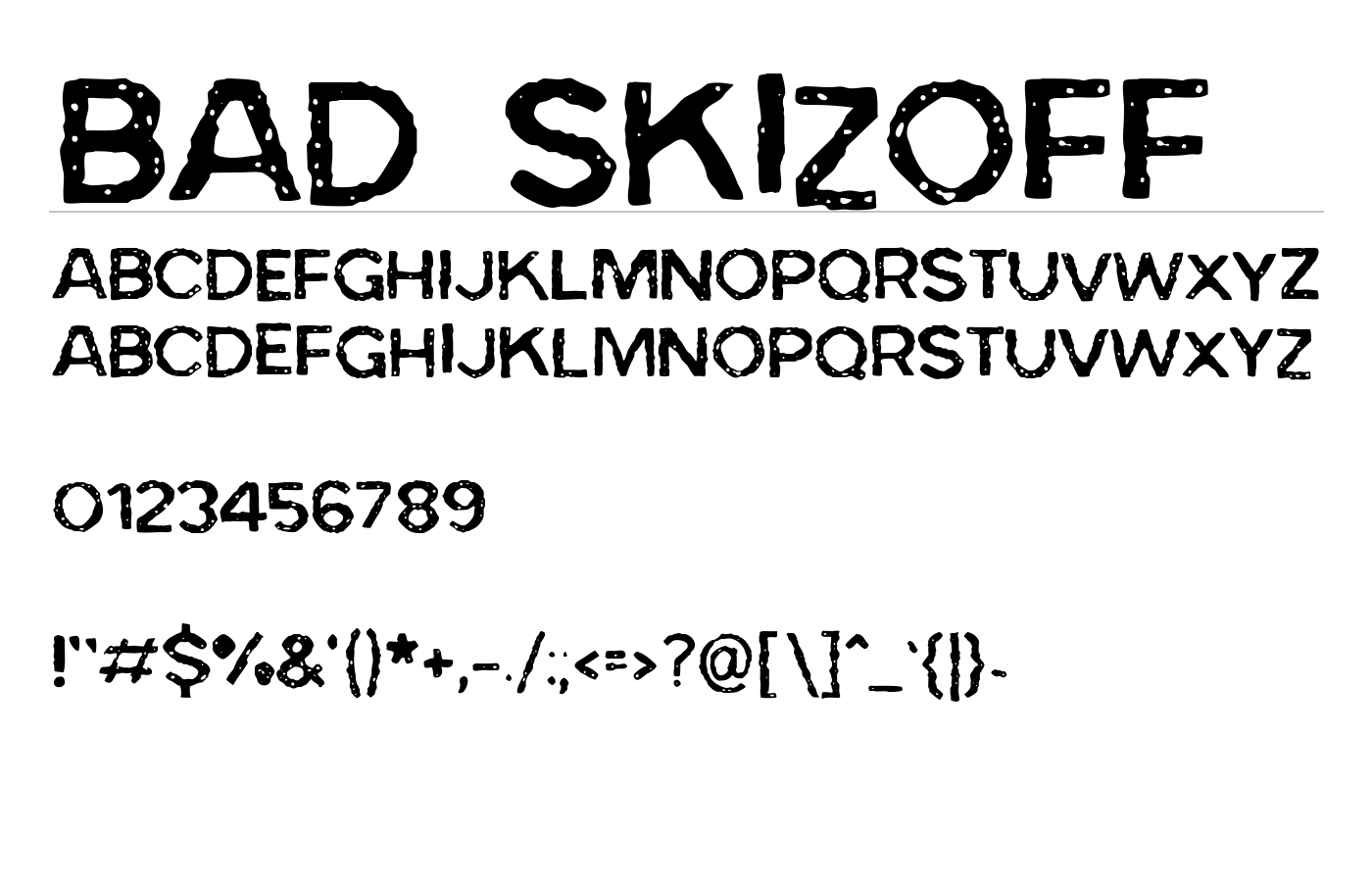
Bad Skizoff is a quirky, hand-drawn sans serif font with irregular, playful shapes and a textured, distressed look. Its uneven strokes and casual style give it an energetic and informal feel, making it ideal for creative projects, posters, or branding that aims to be fun and eye-catching. This font works well in display settings where uniqueness and personality are key.
Bad Skizoff Font
About Bad Skizoff Font
| Font family | Bad Skizoff Font |